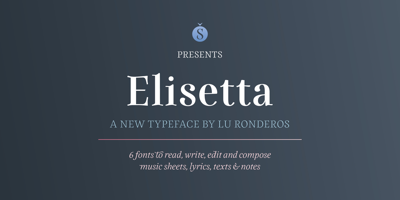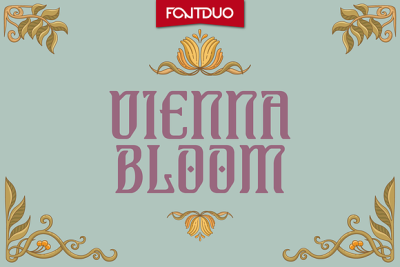
4 Fonts Combo Free Download
4 Fonts Combo Free Download is a diverse and versatile collection of four unique typefaces that can be paired together to create stunning and balanced designs. This combo includes a mix of serif, sans-serif, script, and display fonts, making it perfect for a wide range of creative projects such as branding, posters, logos, social media graphics, and website designs.
The combination of these four fonts allows for maximum flexibility and creativity, giving you everything you need to craft cohesive and dynamic typographic layouts. Whether you're designing for corporate, casual, or artistic projects, this font bundle gives you the tools to elevate your designs.